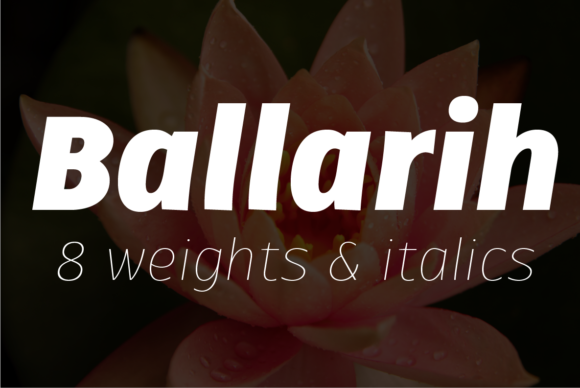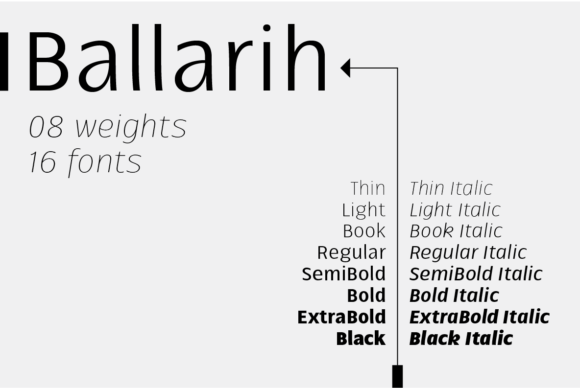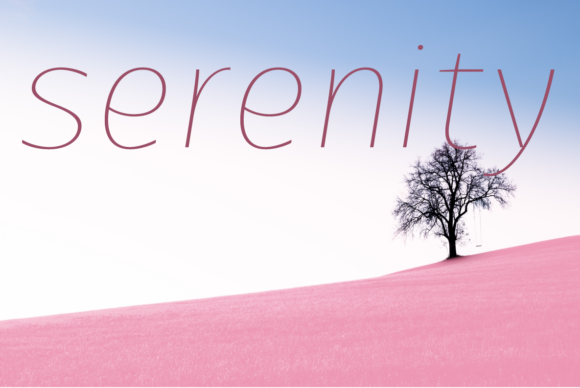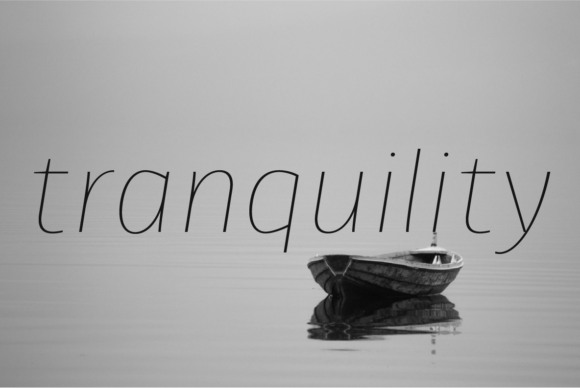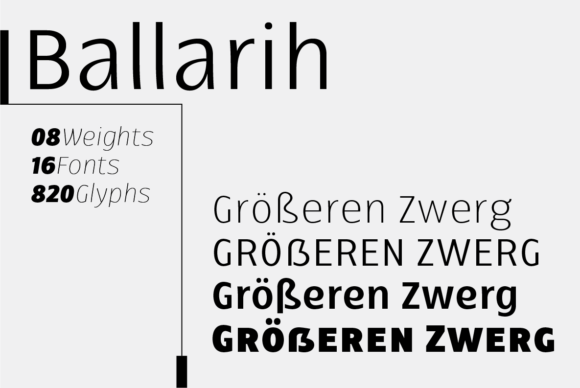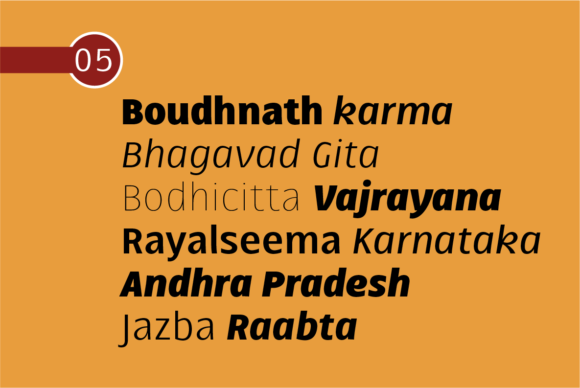
Introducing Ballarih Family Font: Elevate Your Designs with Contemporary Humanist Typography
In the world of typography, a well-crafted font family can make all the difference in creating visually stunning designs. Meet Ballarih, a modern humanist typography family that is taking the design world by storm. With its 16 fonts, 8 weights, and italics, Ballarih offers unparalleled versatility and style. In this article, we’ll dive into the features and benefits of the Ballarih family font, and explore how it can elevate your designs.
What is Ballarih Family Font?
Ballarih is a contemporary humanist typography family designed to provide excellent readability for both web and print. Characterized by a prominent x-height, Ballarih’s fonts are optimized for clarity and legibility, making them perfect for a wide range of design applications. Whether you’re working on a website, brochure, or business card, Ballarih has got you covered.
Key Features of Ballarih Family Font
- 16 Fonts, 8 Weights, and Italics: Ballarih offers a comprehensive range of fonts, allowing you to create complex and nuanced designs. With 8 weights and matching italics, you can achieve precise control over your typography.
- Prominent X-Height: The x-height of Ballarih’s fonts is deliberately designed to be more prominent, making it easier to read and recognize characters.
- Excellent Readability: Ballarih’s fonts are optimized for both web and print, ensuring that your designs look great in any medium.
- Perfect Combinations: All styles within the Ballarih family can be combined seamlessly, giving you the freedom to experiment with different design combinations.
Benefits of Using Ballarih Family Font
So, why choose Ballarih for your design projects? Here are just a few benefits of using this versatile font family:
- Consistency: With Ballarih, you can maintain a consistent visual identity across your designs, thanks to the font family’s cohesive look and feel.
- Flexibility: The 16 fonts and 8 weights within the Ballarih family give you the flexibility to experiment with different design styles and moods.
- Readability: Ballarih’s optimized readability ensures that your text is easy to read, even at smaller font sizes.
- Professionalism: The Ballarih family font exudes professionalism and sophistication, making it perfect for high-end designs and branding projects.
Who Can Benefit from Ballarih Family Font?
Ballarih is an excellent choice for a wide range of designers and crafters, including:
- Graphic Designers: Whether you’re working on branding, packaging, or advertising projects, Ballarih offers a versatile and stylish solution.
- Web Designers: With its excellent readability and web-friendly design, Ballarih is perfect for websites, blogs, and digital applications.
- UI/UX Designers: Ballarih’s clean and legible design makes it an excellent choice for user interface and user experience design projects.
- Crafters and Makers: If you’re creating handmade products, such as stationery, stickers, or crafts, Ballarih offers a beautiful and professional font solution.
In conclusion, the Ballarih family font is an exceptional addition to any designer’s toolkit. With its 16 fonts, 8 weights, and italics, Ballarih offers unparalleled versatility and style. Its prominent x-height, excellent readability, and perfect combinations make it an ideal choice for a wide range of design applications. Whether you’re a graphic designer, web designer, or crafter, Ballarih is sure to elevate your designs and help you achieve professional-looking results.